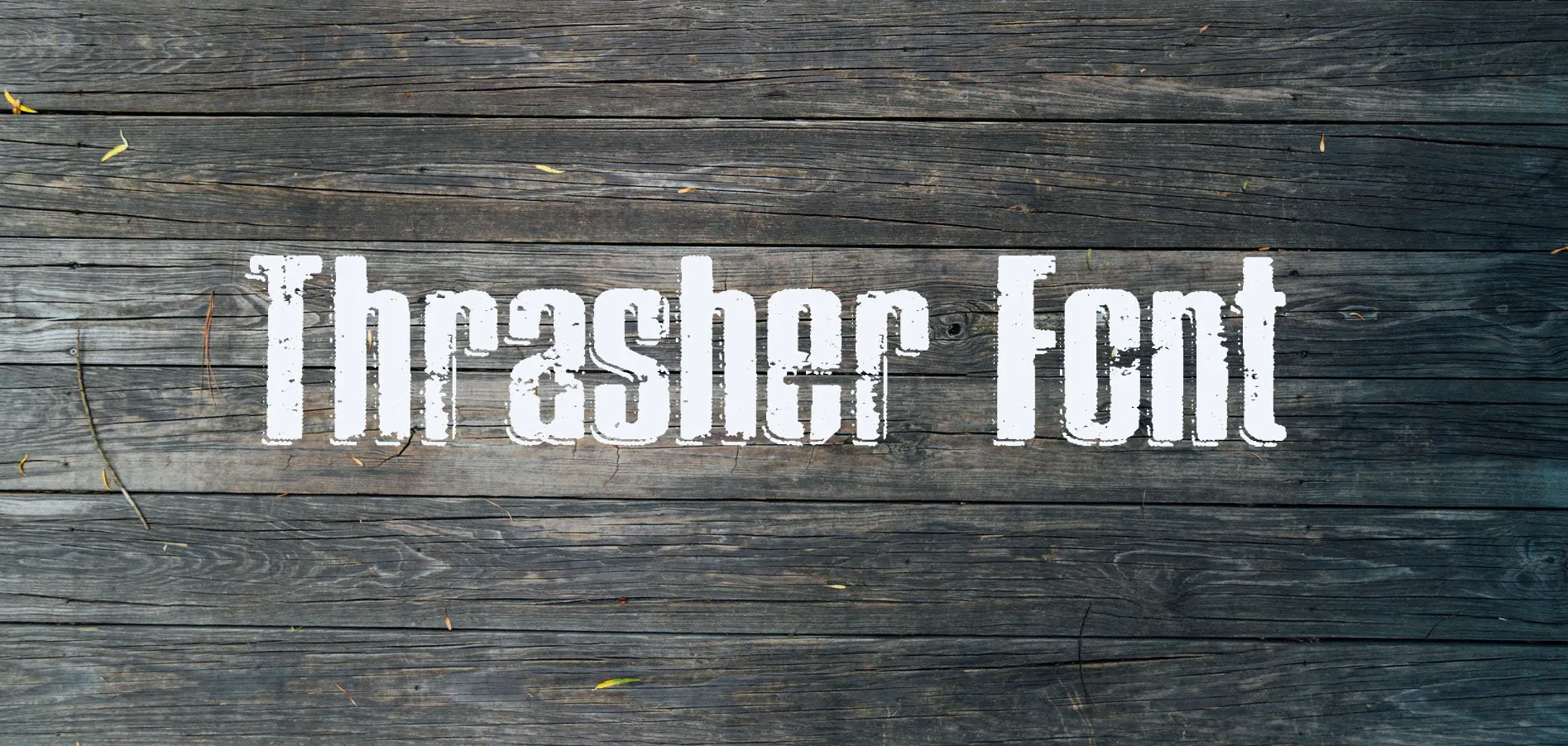
Thrasher Font Family is a Display typeface that became popular following its use in a skateboarding magazine that first appeared in 1981. The magazine includes various articles about music and skateboarding.
The font used on the Logo is Banco Typeface that was originated in 1951 by a French font designer Roger Excoffon who is known as a master of this field.
Thrasher Font Family
NameThrasher Font
DesignerRoger Excoffon